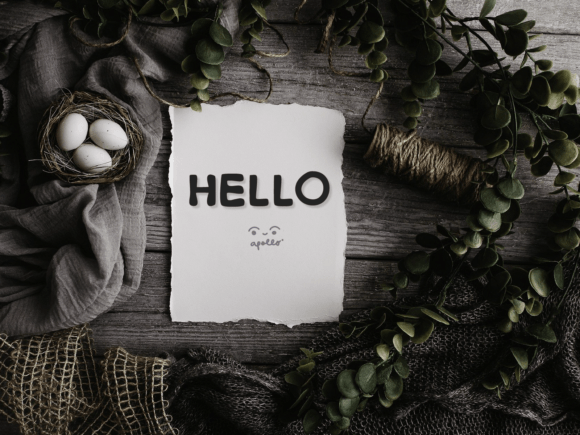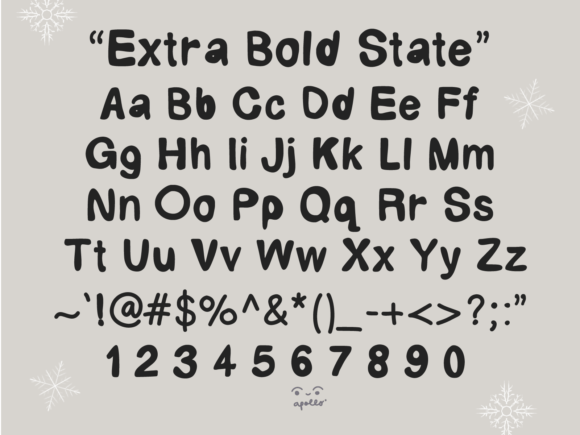
Extra Bold State Font
About Extra Bold State Font
**Extra Bold State Handwritten Font: A Chalkboard-Inspired Typeface for Authentic Designs**
Extra Bold State is a simple and cute handwritten font that captures the essence of chalkboard writing. Its authentic appearance adds a personal and realistic feel to your designs, making it an excellent choice for various creative projects. Here’s how you can effectively use the Extra Bold State Handwritten Font to enhance your designs:
1. **Chalkboard Quotes:** Create eye-catching chalkboard-style quotes, sayings, and inspirational messages. Extra Bold State’s authentic look lends an organic and handcrafted feel to your typographic designs.
2. **Teaching Materials:** Design engaging teaching materials, worksheets, lesson plans, and educational resources using Extra Bold State. Its handwritten charm adds an approachable touch to educational content.
3. **Chalkboard Art:** Craft charming chalkboard art pieces for home decor, special occasions, or events. The font’s simplicity and authenticity make it ideal for artistic and decorative projects.
4. **Chalkboard Menus:** Design attractive restaurant menus, café chalkboards, or menu boards for food trucks and eateries. Extra Bold State’s chalk-inspired style brings a rustic and inviting ambiance to culinary offerings.
5. **Crafting and DIY:** Incorporate Extra Bold State into crafting and DIY projects, such as handmade cards, labels, signs, and personalized gifts. Its handwritten appearance adds a personalized touch to creative endeavors.
6. **Logo Design:** Create unique and memorable logos for businesses, brands, or products that embrace a chalkboard aesthetic. Extra Bold State’s simplicity and authenticity make it suitable for branding with a handcrafted appeal.
7. **T-Shirt Printing:** Design custom t-shirts, apparel, and merchandise with chalkboard-inspired graphics and text using the Extra Bold State font. It adds a trendy and artisanal touch to clothing designs.
8. **Sporting Events:** Use Extra Bold State for sporting event promotions, team banners, fan gear, and athletic-themed designs. Its bold and playful style suits sports-related graphics.
9. **Social Media Graphics:** Design eye-catching social media posts, cover images, and profile pictures for platforms like Instagram, Pinterest, or Facebook. Extra Bold State’s handwritten charm adds authenticity to your online presence.
10. **Party Invitations:** Create charming party invitations, event posters, and announcements with a chalkboard theme. Extra Bold State enhances the rustic and inviting atmosphere of celebrations.
11. **Book Covers:** Design book covers, especially for genres that require a personalized or handcrafted touch, such as cookbooks, journals, or children’s books.
12. **Art and Craft Workshops:** Promote art and craft workshops, classes, and events with Extra Bold State. Its handwritten style conveys a sense of creativity and hands-on learning.
13. **Product Packaging:** Enhance product packaging for artisanal, handmade, or organic products with Extra Bold State’s handwritten labels, tags, and branding elements.
14. **Business Signage:** Create charming and rustic signage for brick-and-mortar businesses, boutiques, cafes, and vintage shops. Extra Bold State adds character to storefronts.
15. **Stationery and Greeting Cards:** Design stationery, note cards, and greeting cards with handwritten messages and illustrations. The font’s simplicity makes it suitable for heartfelt correspondence.
16. **Home Decor:** Incorporate Extra Bold State into home decor items such as framed quotes, wall decals, and personalized signs for a cozy and rustic ambiance.
17. **Holiday and Event Graphics:** Use Extra Bold State for holiday-themed graphics, event invitations, and festive decorations, especially for occasions like weddings and parties.
Extra Bold State is a versatile handwritten font that brings the charm of chalkboard writing to your design projects. Whether you’re creating educational materials, chalkboard art, or branding with a handmade touch, this font offers simplicity and authenticity to elevate your designs. Its genuine and personal feel makes it a valuable addition to your creative toolkit.